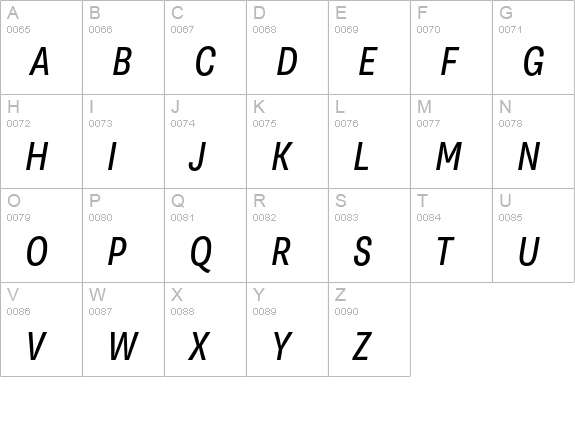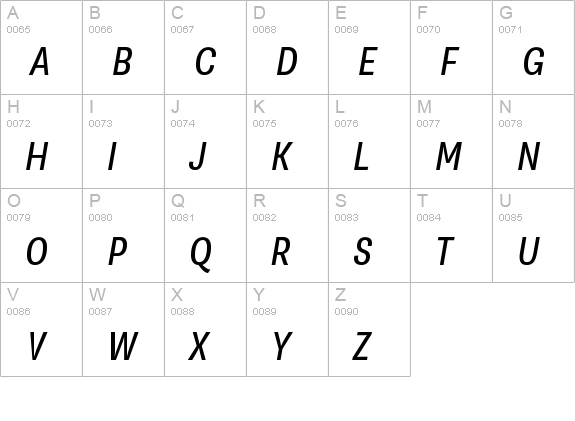
Supria Sans Cond Regular Italic Font Details
Supria Sans Cond Regular Italic is the standard, neutral, condensed-width, italic variant in the Supria typeface family \xE2\x80\x94 well suited to general body text, paragraphs, and standard typographic work.
Supria Sans Cond Regular Italic font exudes a sleek and modern aesthetic, making it a versatile choice for a wide range of design projects. The italicized version of this typeface adds a touch of elegance and sophistication, perfect for conveying a sense of style and refinement. With its clean lines and balanced letterforms, Supria Sans Cond Regular Italic is a highly legible font that can be used for both display and body text. What makes Supria Sans Cond Regular Italic even more appealing is that it is freely available to download at FontsMarket.com. This means that designers and creatives can easily access this high-quality typeface without any cost, making it a valuable addition to their font library. Whether you're working on branding materials, editorial layouts, or web design projects, Supria Sans Cond Regular Italic offers a versatile and attractive option that will elevate your designs.